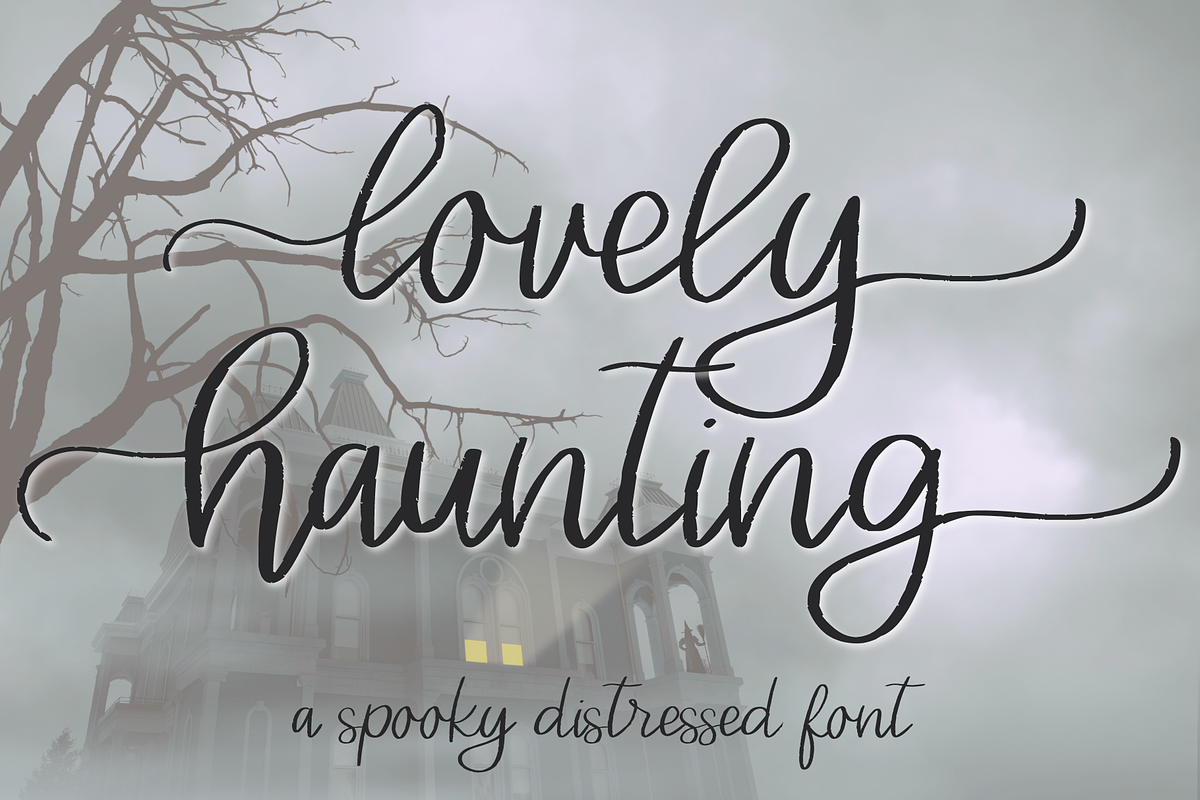
Lovely Haunting Halloween Script Font Free Download is a spooky-cute typeface perfect for all your Halloween-themed creations. With its playful script style and eerie flair, this font adds just the right amount of fright and fun to your designs. Ideal for party invitations, trick-or-treat bags, posters, social media graphics, and more, it brings festive spirit to life.
The font combines quirky handwritten strokes with ghostly charm, making it a standout for seasonal projects. Whether you're creating creepy-cute merch or designing a haunted house flyer, Lovely Haunting delivers both style and spooky vibes.
Packed with expressive characters and smooth swashes, Lovely Haunting Halloween Script Font Free Download is your go-to for all things Halloween. Try the demo version today and give your designs a wickedly fun twist!